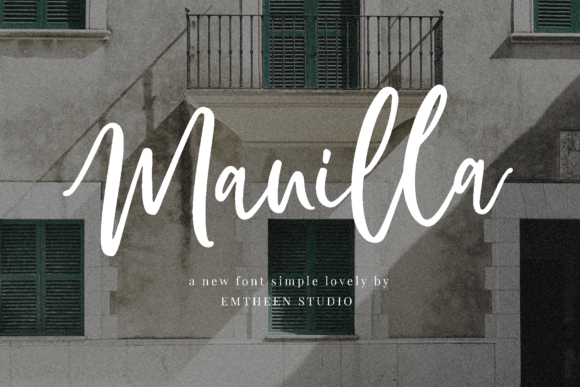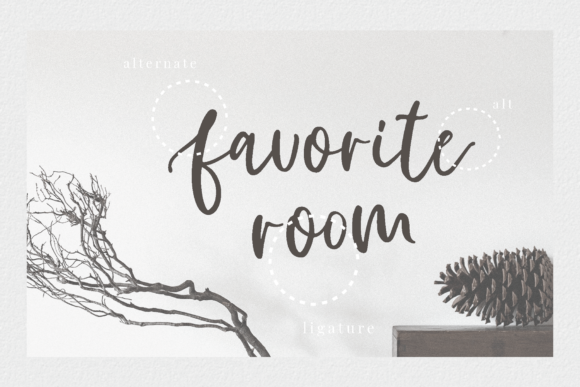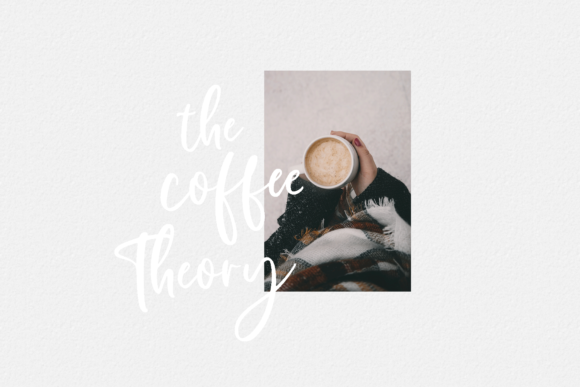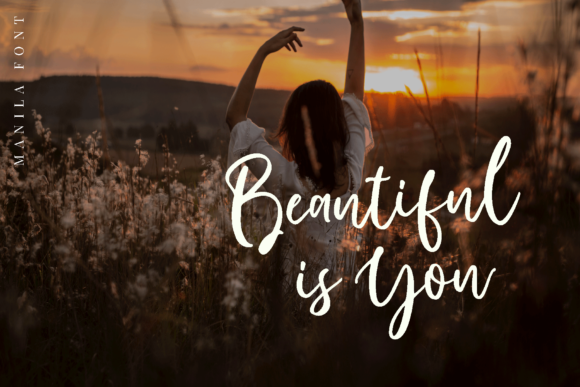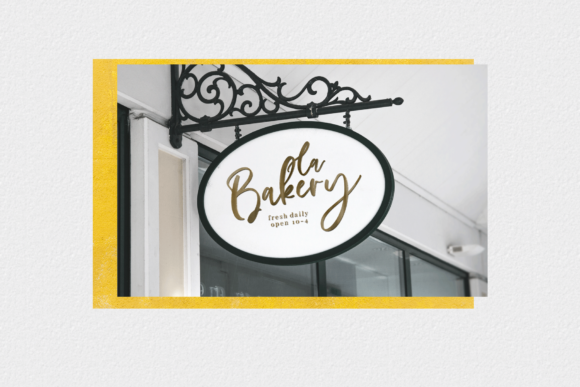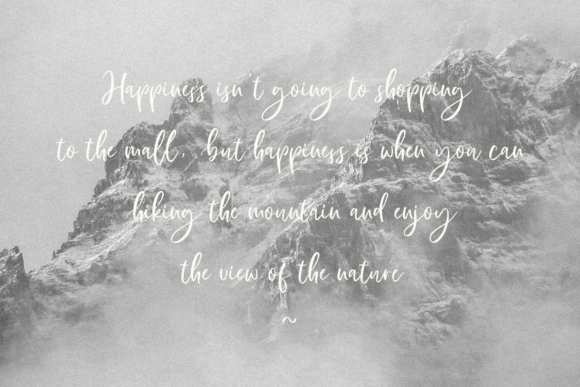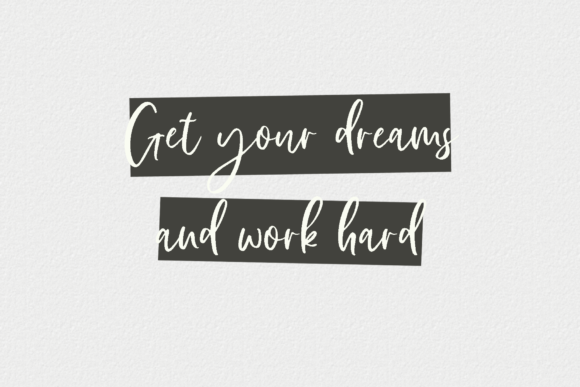
Manilla Script Font
About Manilla Script Font
The Manilla is a simple script-style. It can be used for various purposes and will add a modern touch to your design.